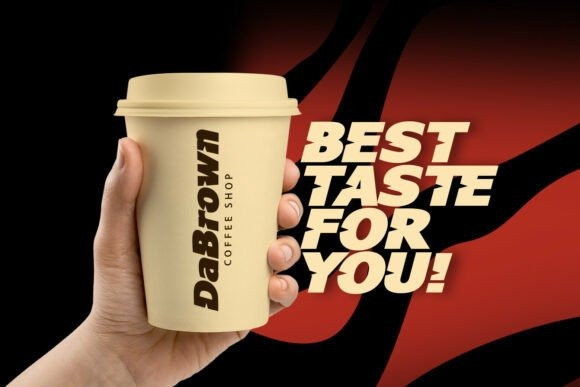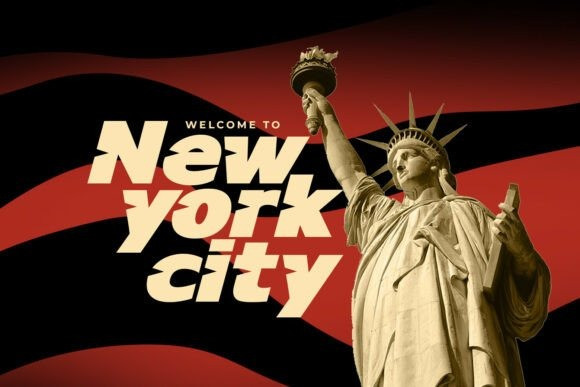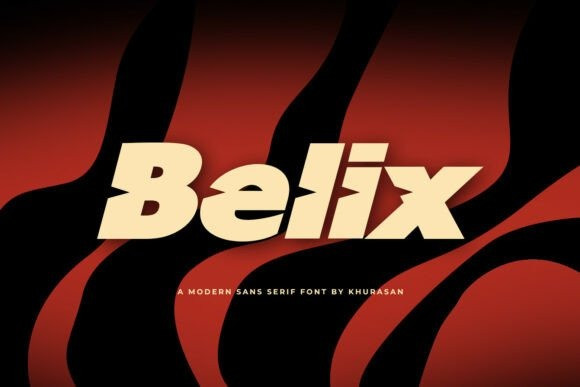
Belix Font
Belix Font is a modern and unique, bold sans serif font with a truncated font style. This font is perfect for posters, logos, magazines, book covers, banners, and many more! Get this quirky handwritten font, and use it to create lovely designs! It can easily be matched to an incredibly large set of projects, so add it to your creative ideas and notice how it makes them stand out!